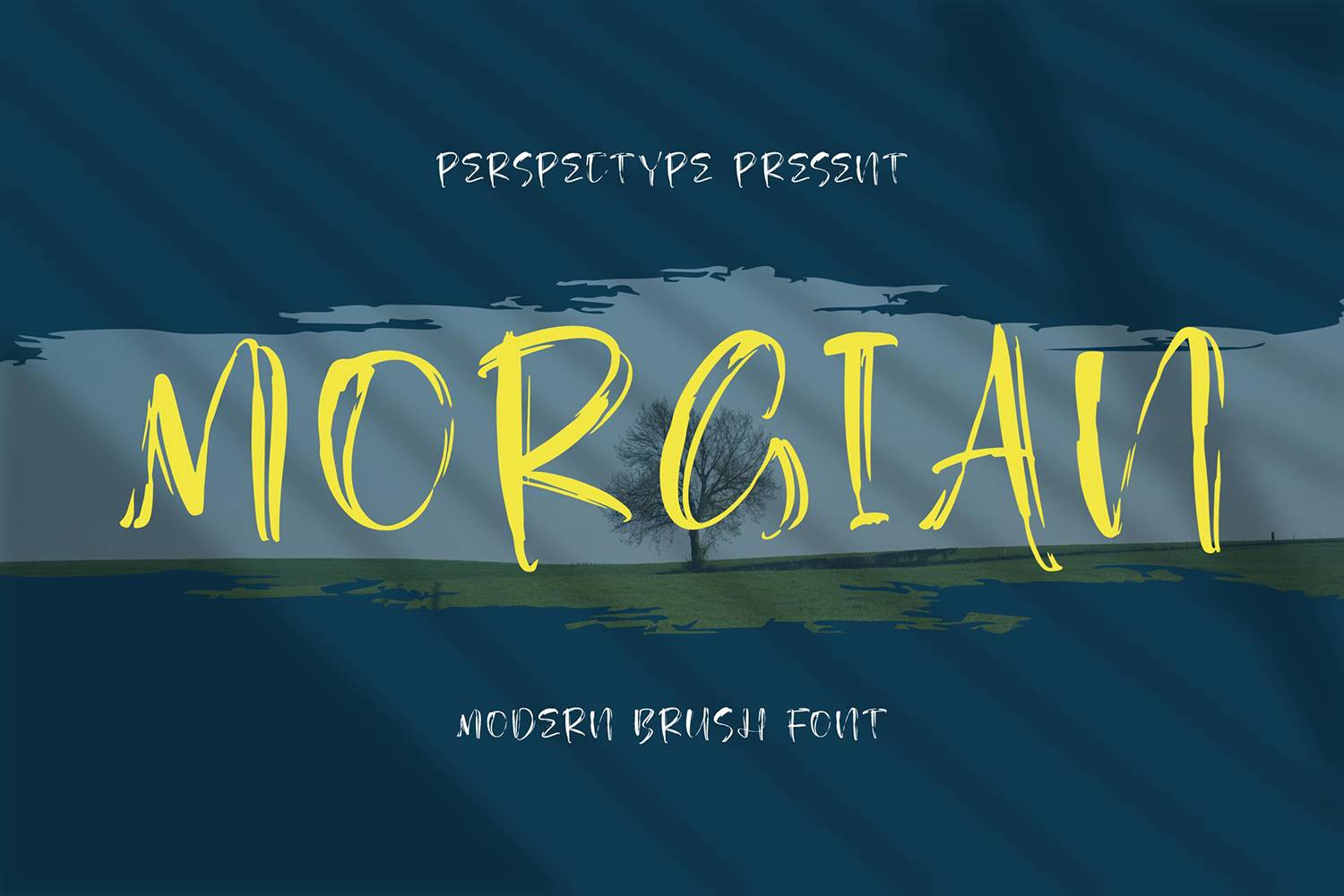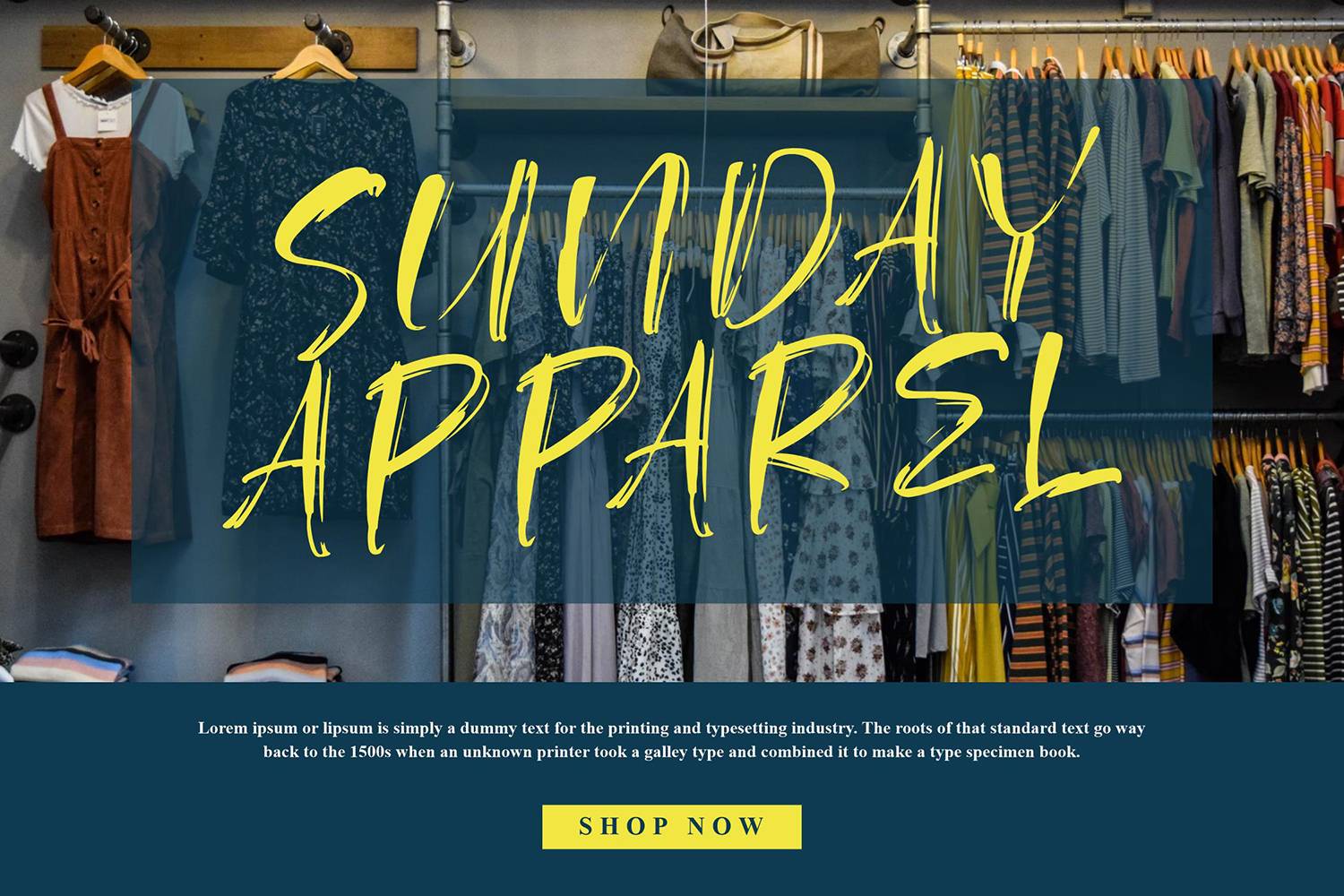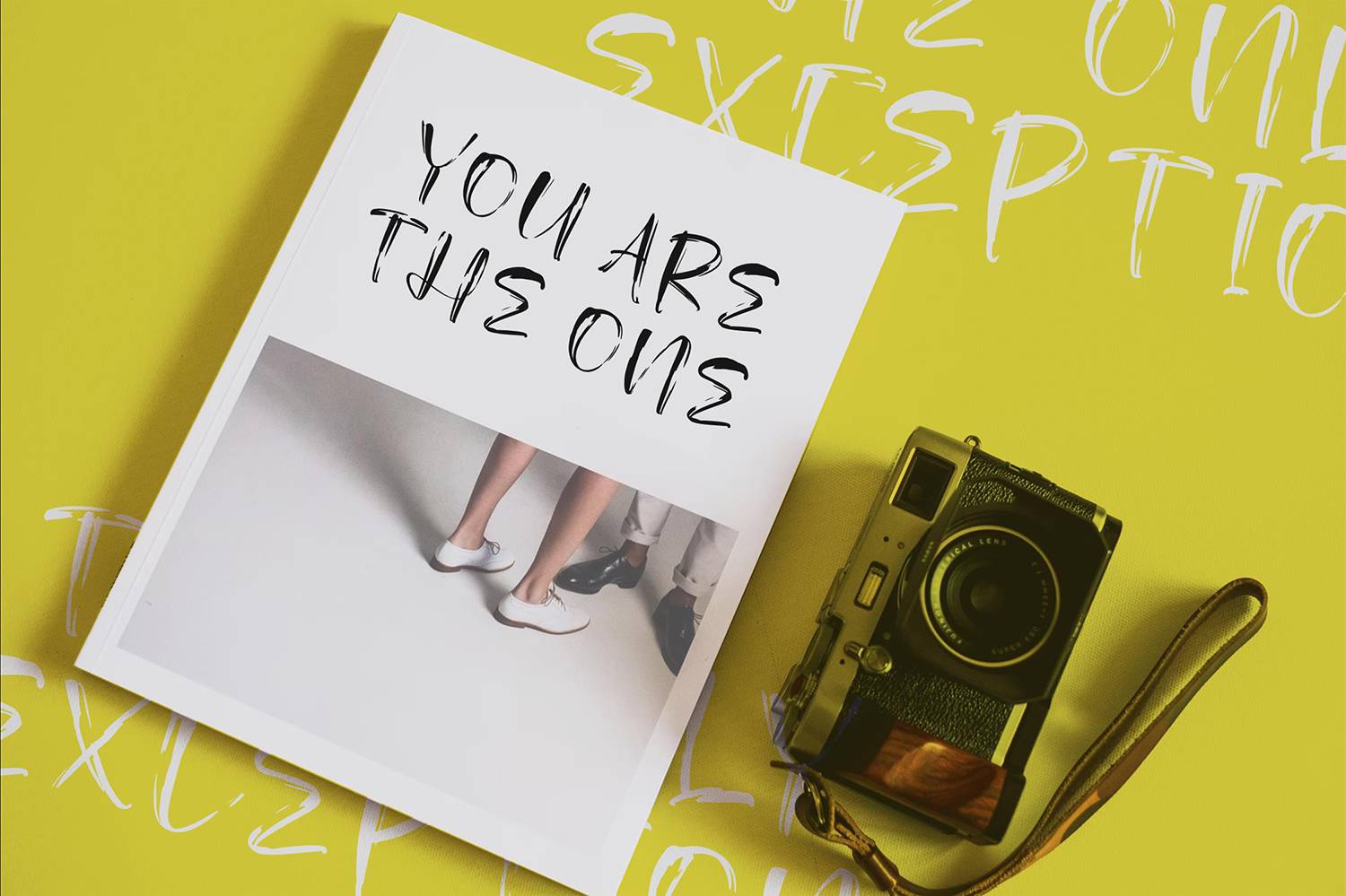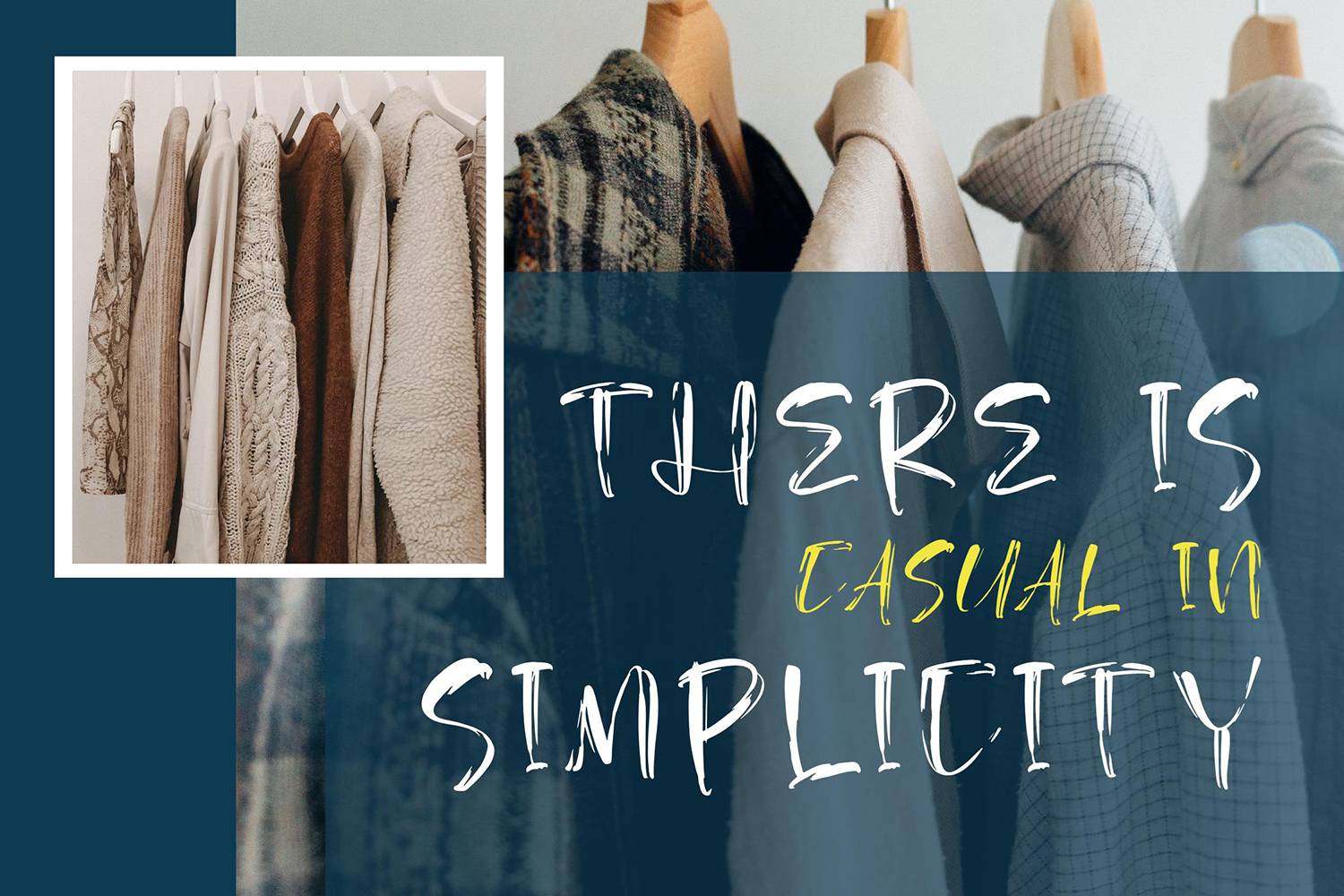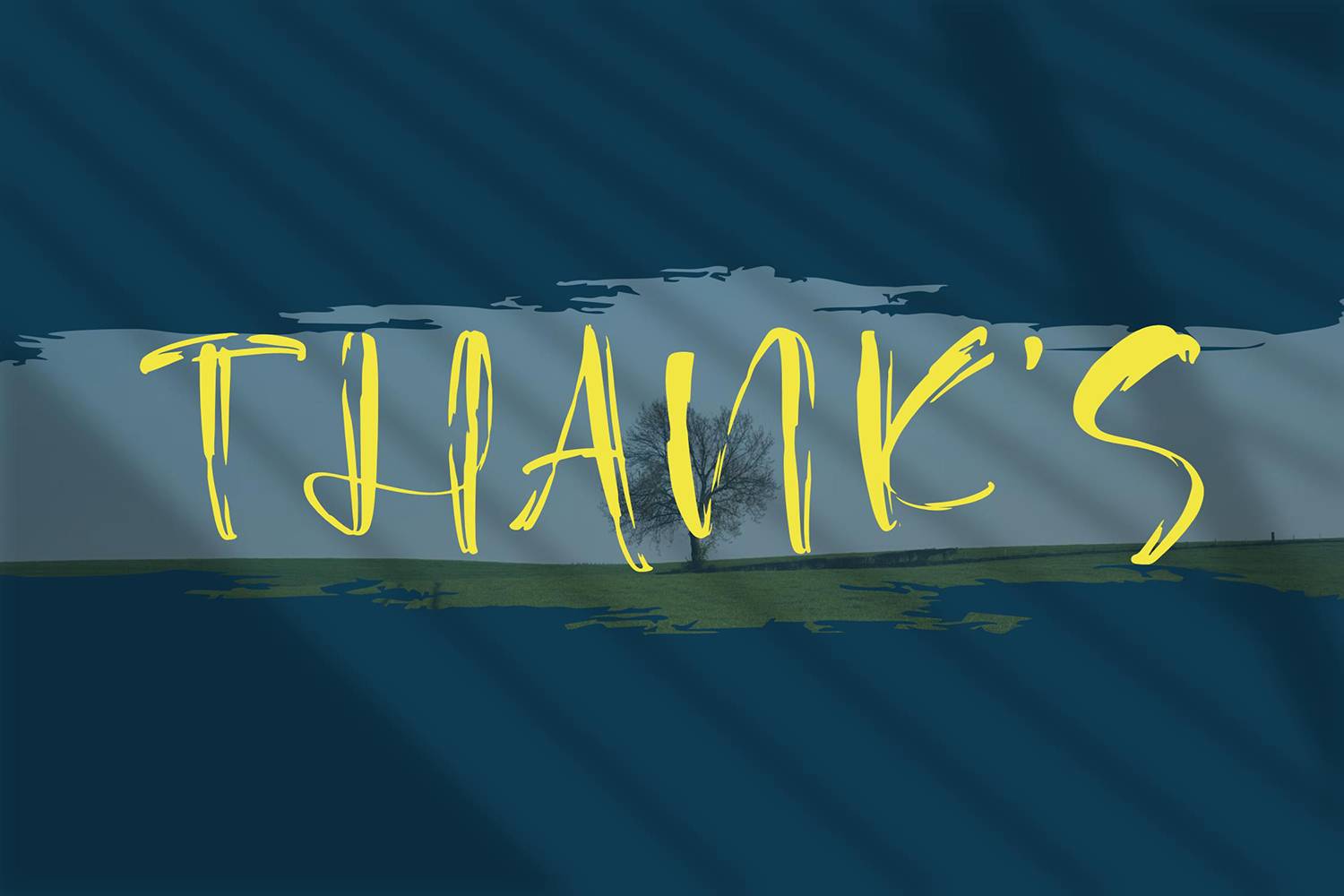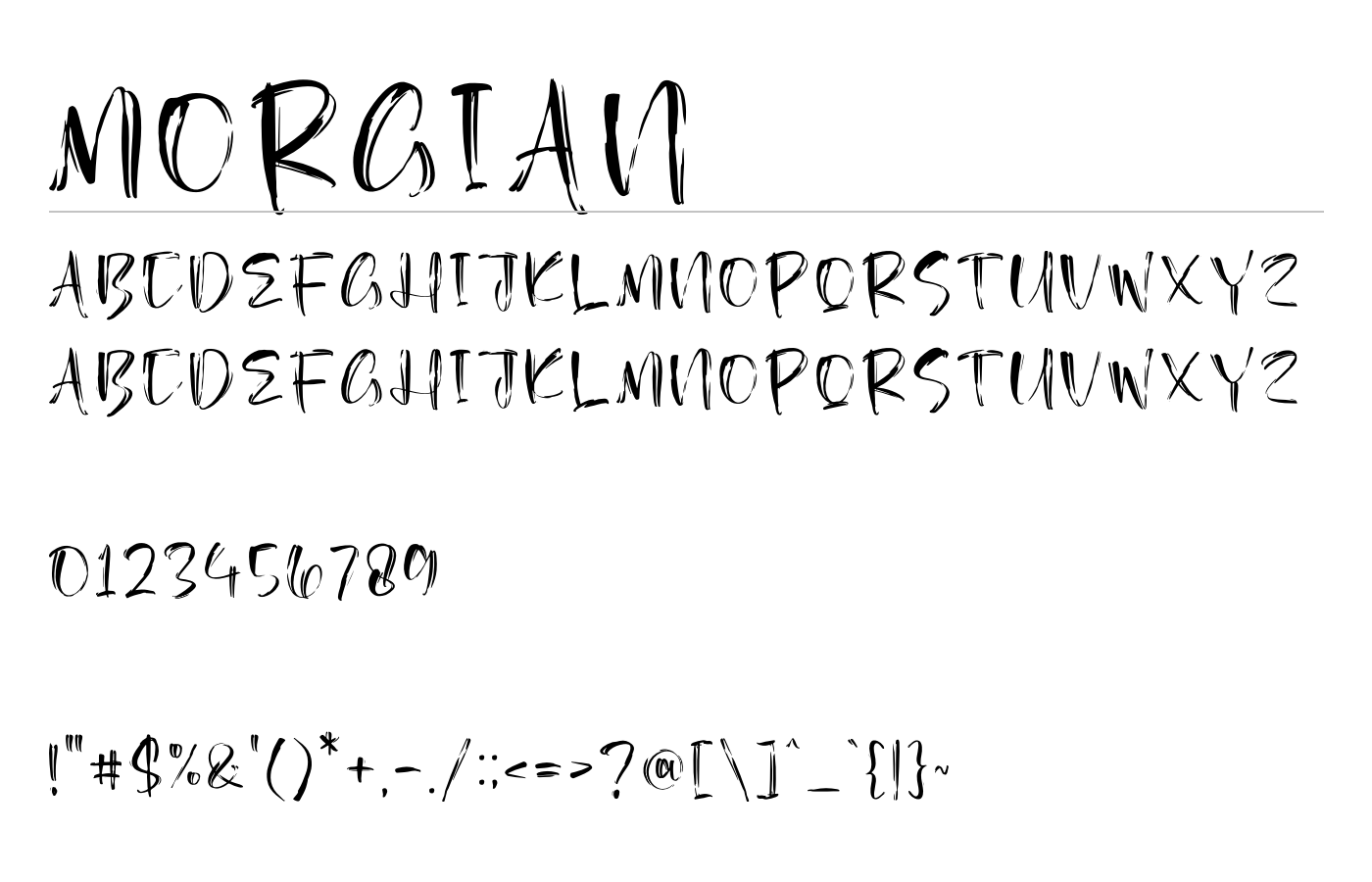
Morgian is a playful and expressive handwritten font with a casual, brushstroke style that gives it a lively, artistic feel. Its irregular strokes and organic shapes create a sense of spontaneity and creativity, making it ideal for personal projects, informal branding, and eye-catching headlines. This font works best where a unique, relaxed, and handcrafted vibe is desired, adding personality and charm to designs.
Morgian Font
About Morgian Font